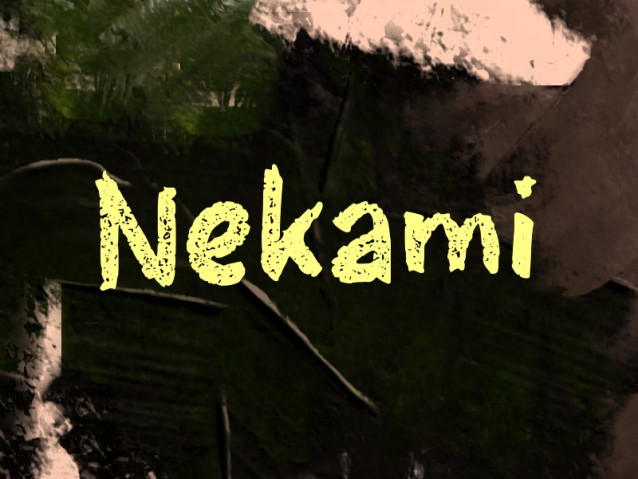
Nekami Font
Nekami Font is a simple and modern display font suitable for quotes, logos, headings, titles, and many more. Use it on any of your creative projects, and your designs will become outstanding!